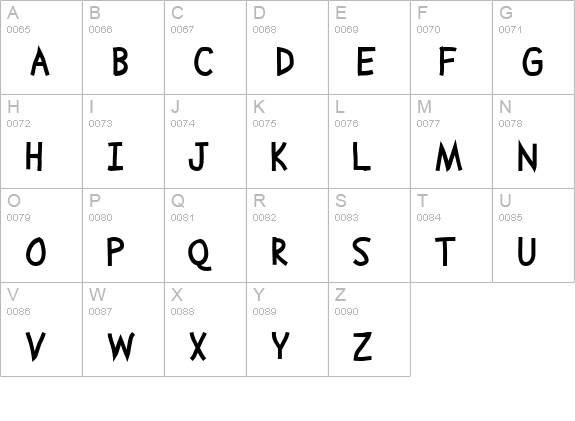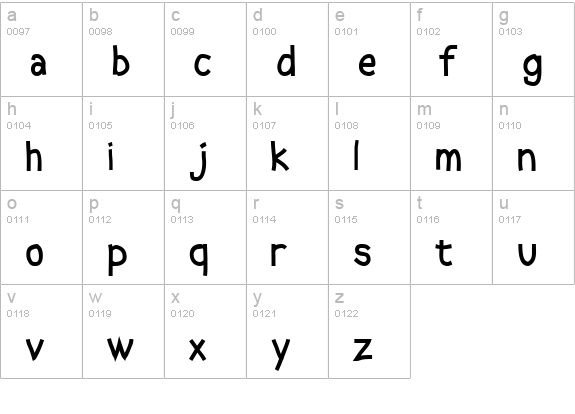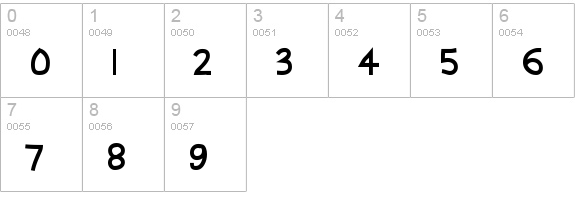
Abscissa Bold Font Details
Abscissa Bold is a strong, high-contrast variant in the Abscissa typeface family \xE2\x80\x94 well suited to headlines, attention-grabbing titles, and strong calls-to-action.
Abscissa Bold font is a striking and modern typeface that exudes confidence and sophistication. Its bold, clean lines make it perfect for creating eye-catching designs that command attention. With its sleek and contemporary aesthetic, Abscissa Bold is versatile enough to be used in a wide range of design projects, from branding to editorial layouts. What sets Abscissa Bold font apart is not only its impeccable design but also the fact that it is completely free to download. Yes, you read that right - this premium font is available for free at FontsMarket.com. So whether you're a seasoned designer looking to add a new font to your collection or a beginner searching for the perfect typeface for your next project, Abscissa Bold is a fantastic choice that won't break the bank. Download it today and elevate your designs with this exceptional font.